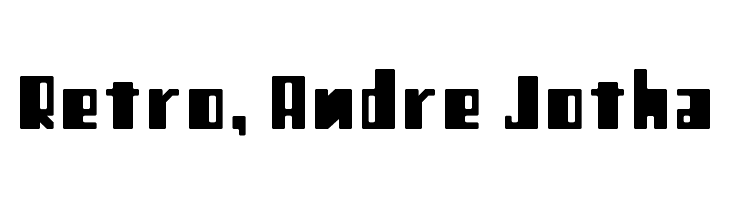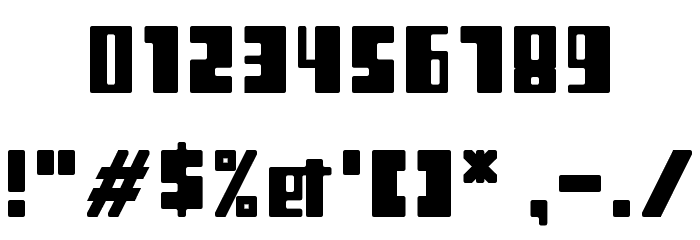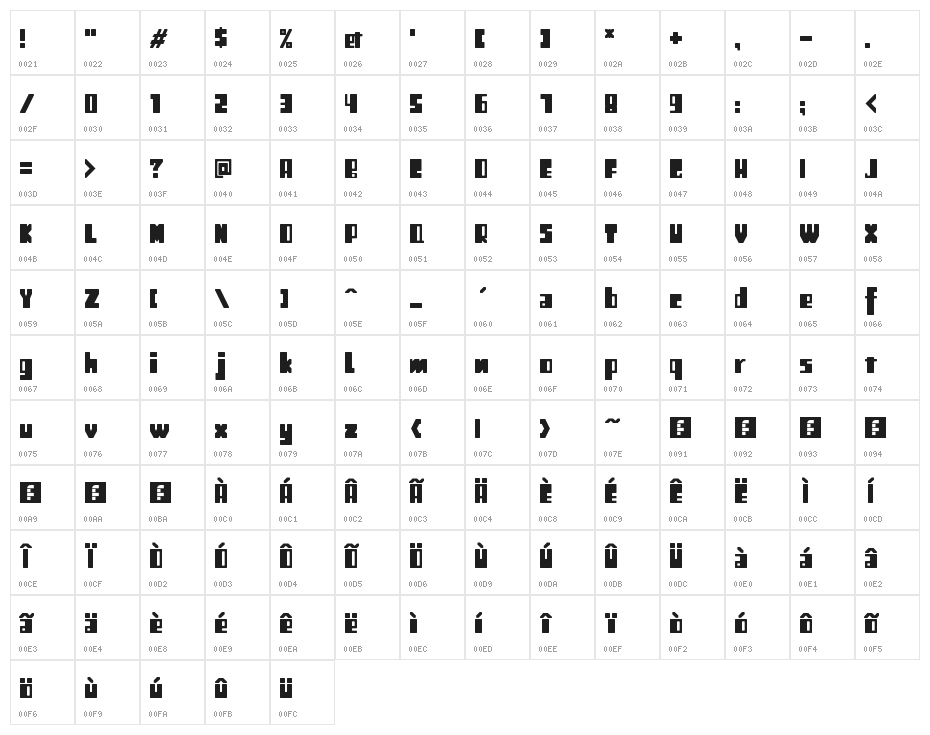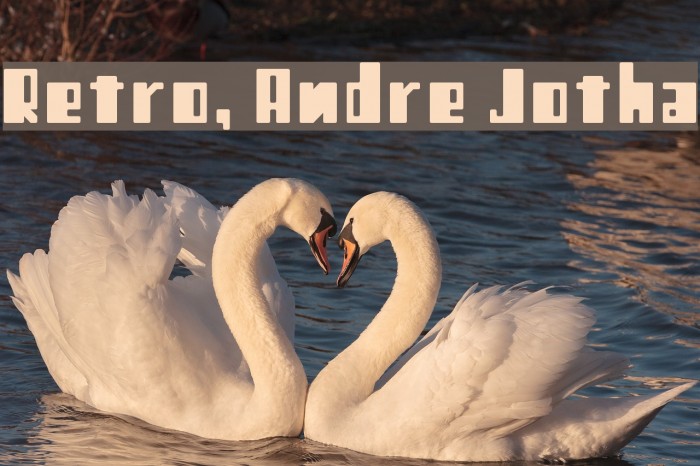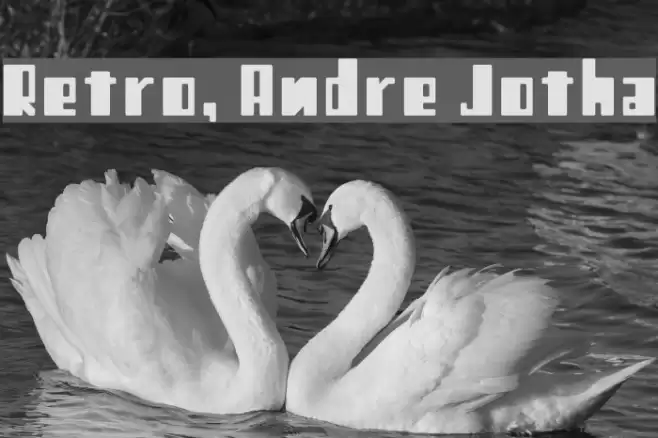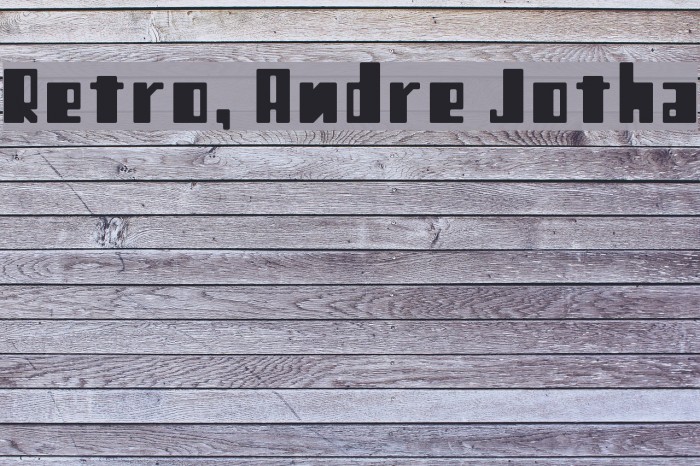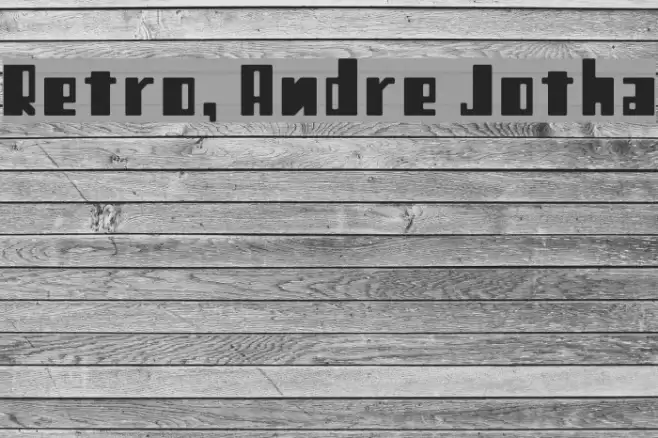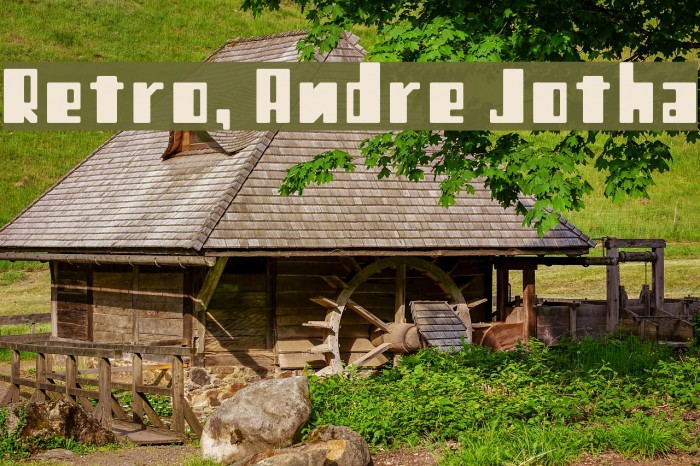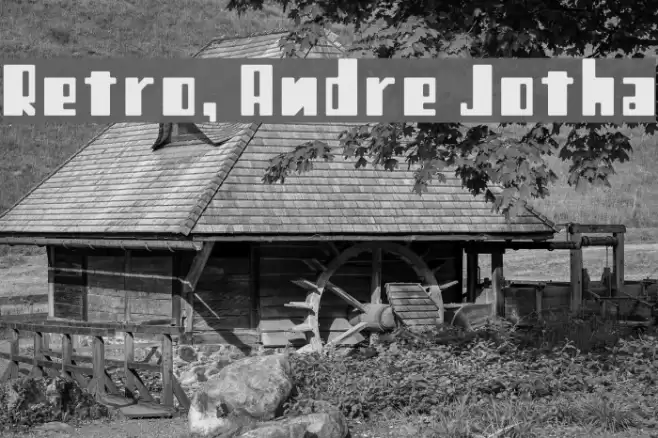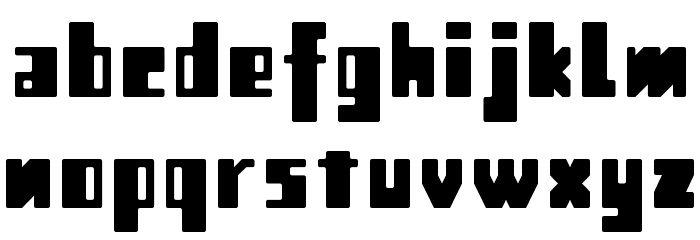
Retro, Andre Jotha Font
Retro, Andre Jotha Description
This font features a bold, geometric design with a distinctly retro vibe. The characters are blocky and angular, with a uniform thickness that gives them a strong, impactful presence. The uppercase letters are particularly striking, with sharp edges and a solid appearance that commands attention. The lowercase letters maintain the same boldness, ensuring consistency across the font. Numbers and special characters are equally robust, making this font versatile for various uses. Its unique style is reminiscent of vintage signage or arcade game graphics, making it ideal for projects that require a nostalgic or playful touch.
| Overall Style | Retro |
| Proposed Projects | Ideal for retro-themed designs, video game graphics, posters, and branding that requires a bold, nostalgic touch. |